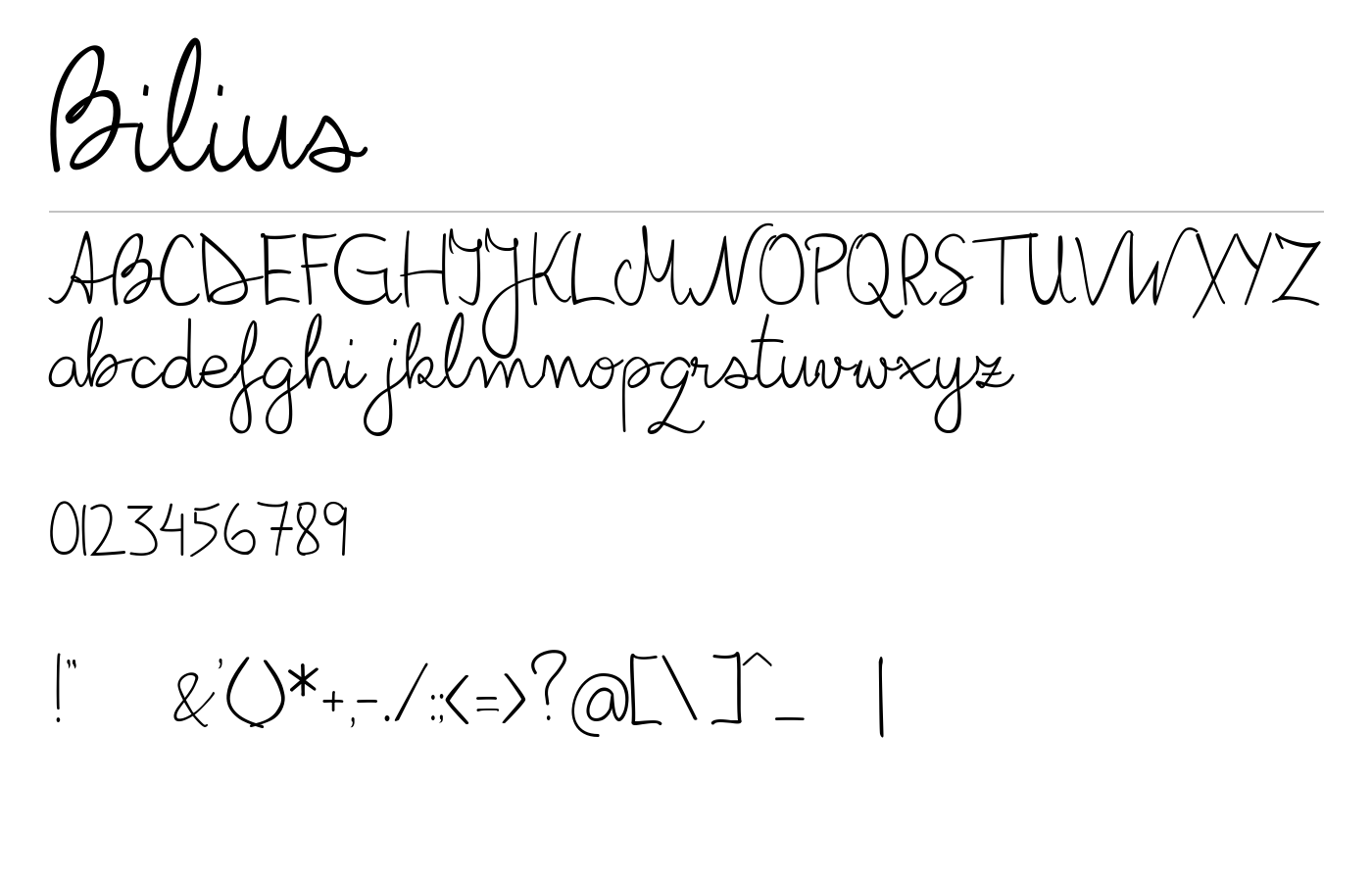
Bilius is a playful and elegant handwritten script font characterized by its thin, smooth strokes and lively, slightly irregular letterforms. Its tall x-height, single-story letters, and casual, flowing style make it perfect for creative and informal branding, invitations, or personal projects that seek a unique, friendly touch. This font works best in logos, headlines, and decorative text where a warm, approachable personality is desired.
Bilius Font
About Bilius Font
| Font family | Bilius Font |
| Designer | Maria Bilius |